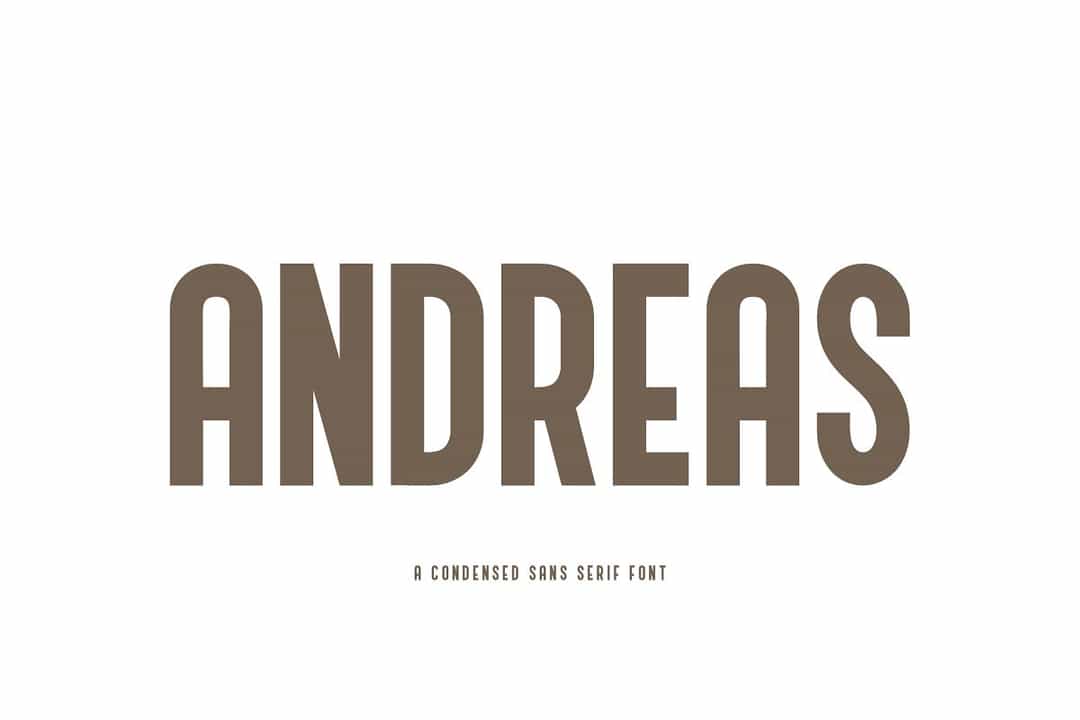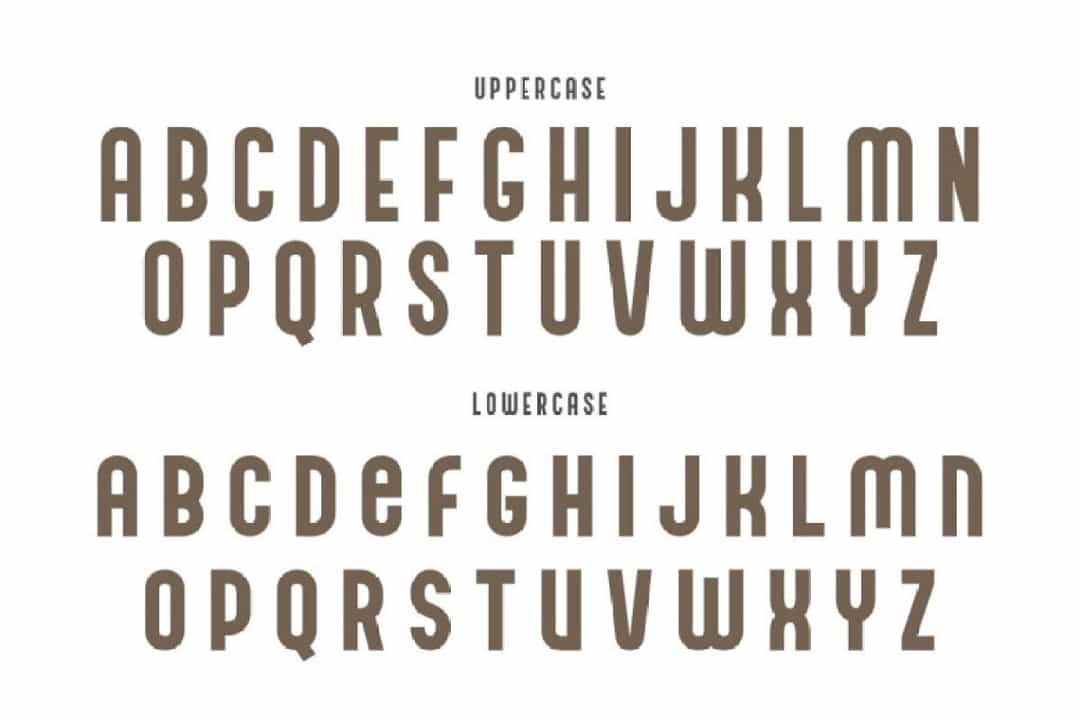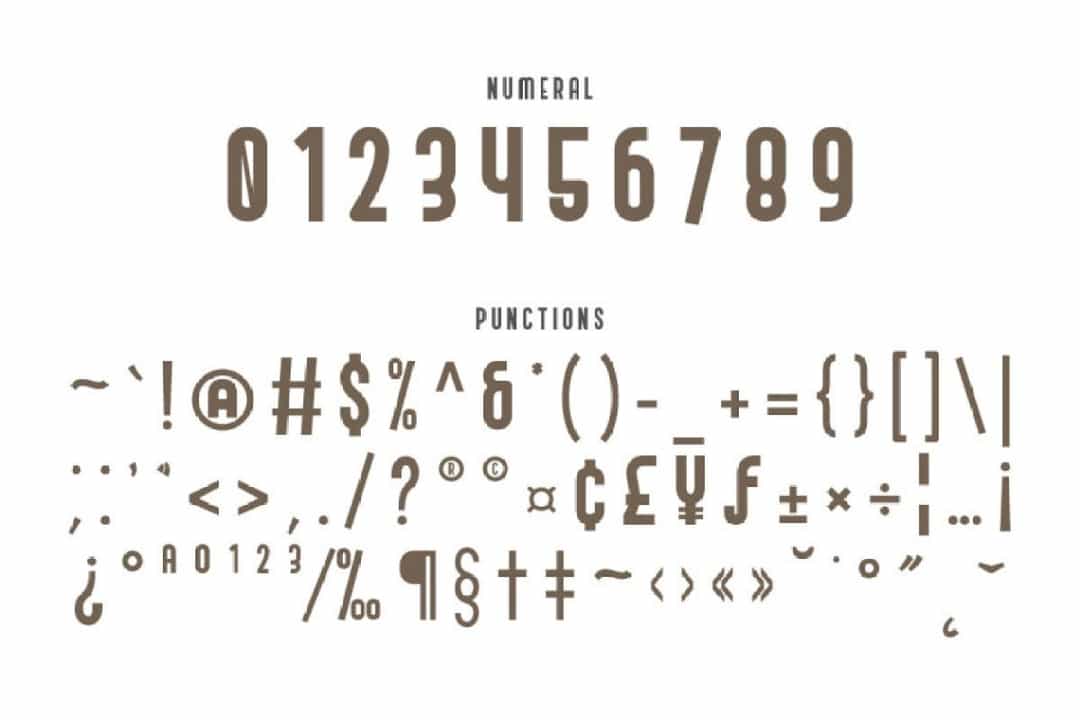
Andreas is a sophisticated font with thin, compact appearance of the letters. It has a very elegant look and feel, which is very modern and perfect for clothing design and album art, signature branding projects, logo for magazines, and logo for social media and ads, but it can be used for any other project!